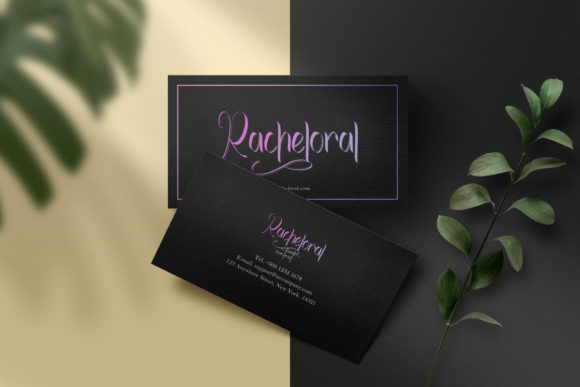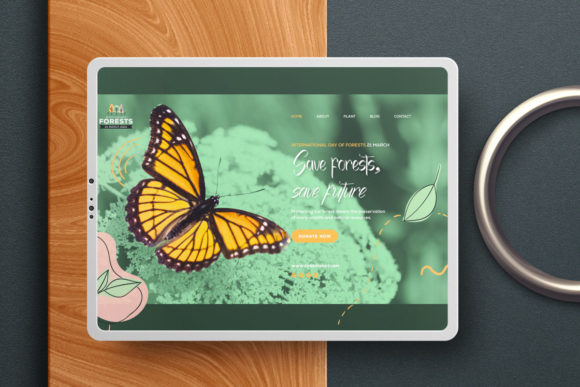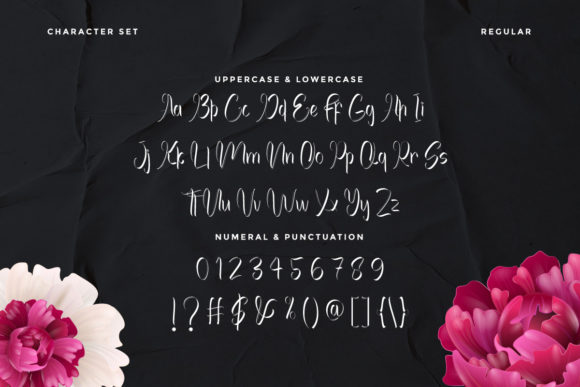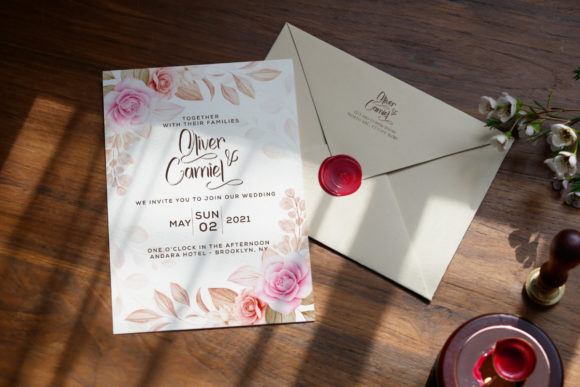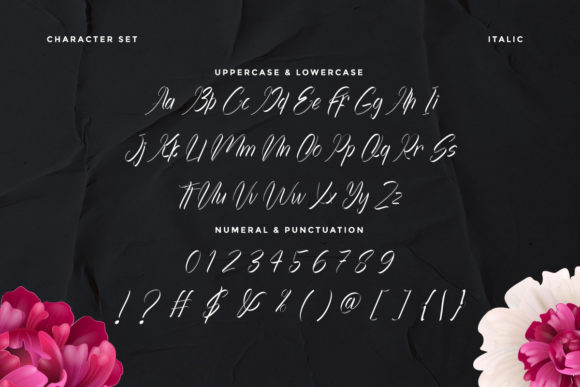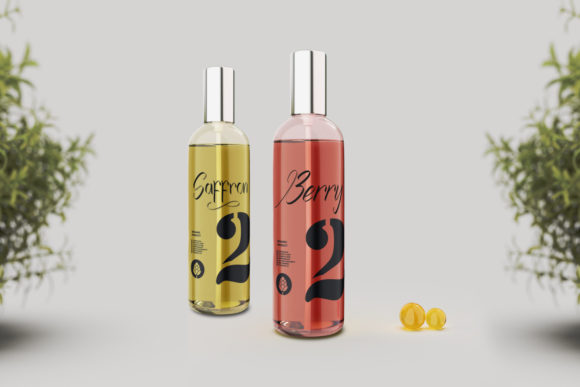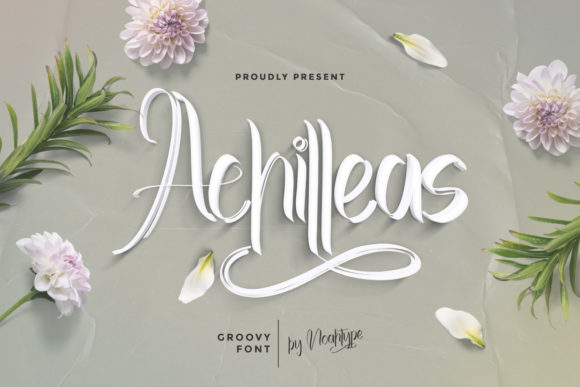
Achilleas: A Font that Checks all the Boxes
Achilleas is a stunning handwritten font that boasts sophisticated characters, stylish swashes, and gorgeous alternates. It’s perfect for creating luxurious branding, fashion promotions, song titles, and, of course, invitation calligraphy. This font is carefully crafted to mimic natural handwriting, making each glyph a beautiful combination of art and design.
What I Love About Achilleas
- ✨ Elegant and sophisticated characters that add a touch of luxury to any design
- ✅ Stylish swashes and gorgeous alternates that offer endless creative possibilities
- 💫 Perfect for wedding invitations, engagements, branding, and more
- 🎨 Highly versatile and can be used for various design projects, from movies to social media
While Achilleas is an amazing font, there are a few things to keep in mind:
- ⚠️ Some users might find the font a bit challenging to read in small sizes, so it’s best to use it for headlines or titles
- 🤔 The font’s elegance and sophistication might not be suitable for very casual or playful designs
Achilleas was created with the goal of crafting a font that would bring a touch of elegance and sophistication to any design project. Inspired by the beauty of handwriting, the font’s designer carefully crafted each glyph to mimic the natural flow of handwriting. The result is a stunning font that’s perfect for designers, crafters, and creative hobbyists alike.
| Font Name | Achilleas Font |
| Author | NoahType |
| What is Achilleas font best used for? | Achilleas is perfect for luxury branding, fashion promotions, song titles, wedding invitations, and more. |
In conclusion, Achilleas is a stunning handwritten font that’s perfect for designers, crafters, and creative hobbyists who need a touch of elegance and sophistication in their designs. With its sophisticated characters, stylish swashes, and gorgeous alternates, Achilleas is sure to become a favorite in your font collection.